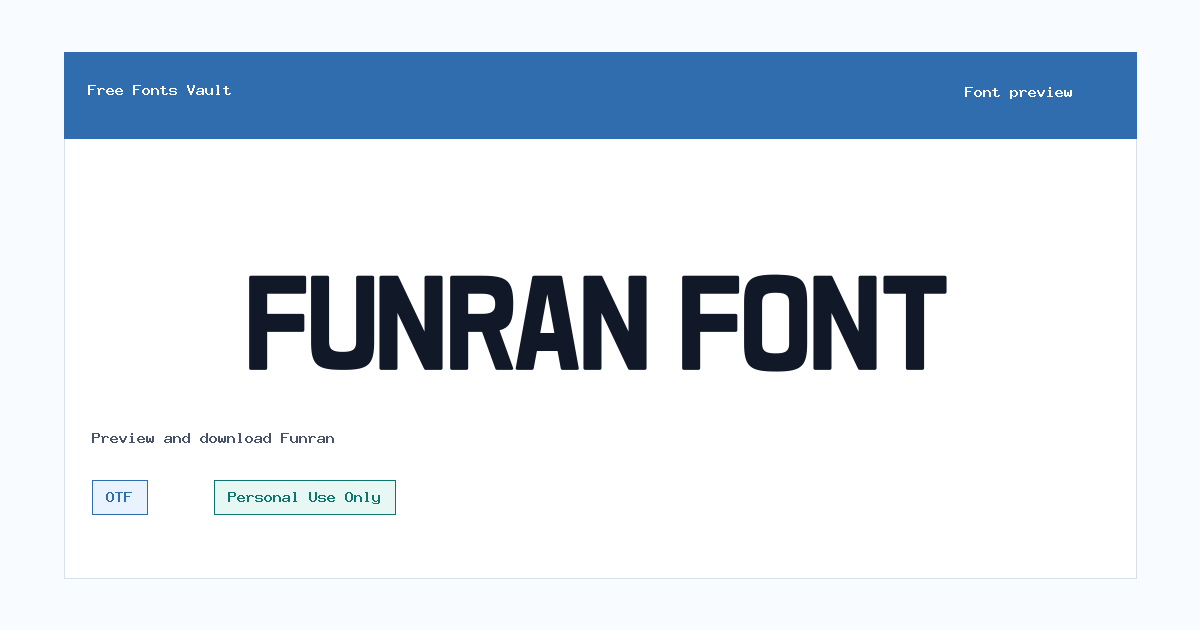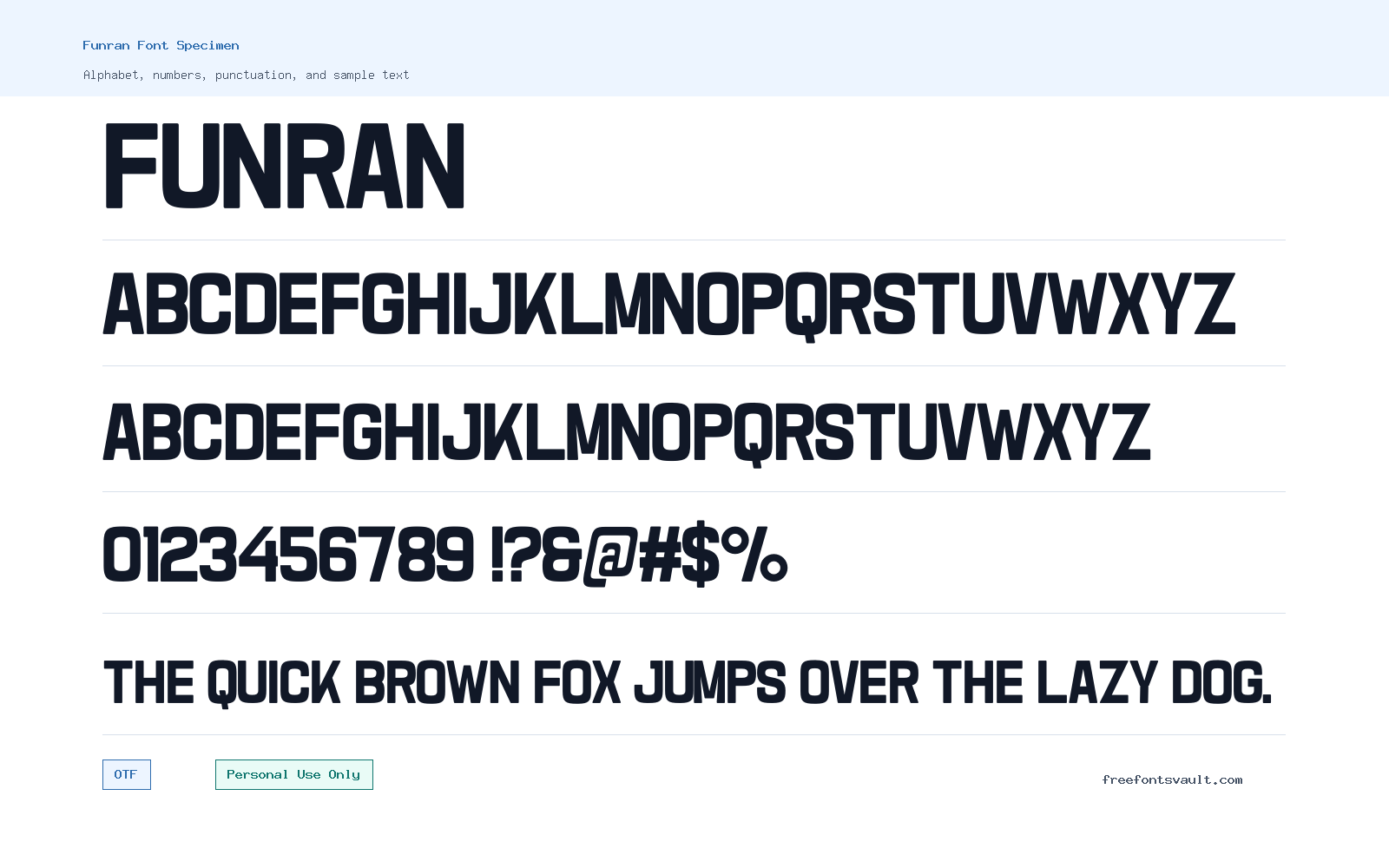
Funran
Funran font preview showing the family name
Funran Font
Funran font specimen showing alphabet, numbers, and sample text
Funran font.
Funran is a sans serif font family from Nurinto and Almairatype Studio, offered in an OTF regular style for personal-use design projects.
About Funran Font
Funran is best approached as a display-friendly sans serif for short pieces of text rather than long reading. Since the downloadable style is a regular OTF file, it is easy to test in common design apps and font preview tools. Use the preview box to check how its letter shapes behave in your own words, especially if you are planning a logo, headline, poster title, social graphic, packaging mockup, or web concept. For any font with a single regular weight, it is worth testing both uppercase and lowercase, because a design that looks balanced in one word may feel different in a longer phrase.
For logo work, start with a short brand name or initials and look closely at spacing between problem pairs such as VA, TO, LY, and WA. If the wordmark feels too loose or too tight, adjust tracking manually instead of relying only on default spacing. For posters and social posts, Funran can be tested at large sizes where the shapes have room to show clearly. For web mockups, try it in hero headings, navigation labels, buttons, and promotional banners before using it across full paragraphs. If you need body text, pair it with a quieter text face that has multiple weights and strong readability at smaller sizes.
Because only one regular style is noted, Funran may not be the right choice when a layout needs a full type system with bold, italic, condensed, or extended styles. That does not make it less useful; it simply means the font should be used with intention. A single-style font often works well as the main accent in a design, while another family handles supporting copy. Keep the hierarchy simple: use Funran for the headline or logo, then choose a neutral sans serif or readable serif for descriptions, captions, and longer information.
• Sans serif design suited to testing in short display text, headings, logo drafts, and poster-style layouts.
Funran is credited to Nurinto, with Almairatype Studio listed as the foundry.
Test Funran with your exact wording before using it in a design. For logos, check spacing and readability at small and large sizes. For posters or web mockups, use it as an accent face and pair it with a plain, readable companion font for longer text. Since only a regular OTF style is listed, avoid building layouts that depend on bold or italic styles unless you have matching files from the same family.
What type of font is Funran?
Funran is described as a sans serif font. It is best tested in short display settings such as logos, headings, posters, and mockups.
Who designed Funran?
Funran is credited to Nurinto, with Almairatype Studio listed as the foundry.
Is Funran good for body text?
It is safer to test Funran as a display font first. For long paragraphs, pair it with a simpler text font that is comfortable at small sizes and offers more weights.
How should I pair Funran with other fonts?
Use Funran for the main title or logo, then pair it with a neutral sans serif or readable serif for descriptions, captions, and body copy. Keep the second font simple so the layout does not feel crowded.